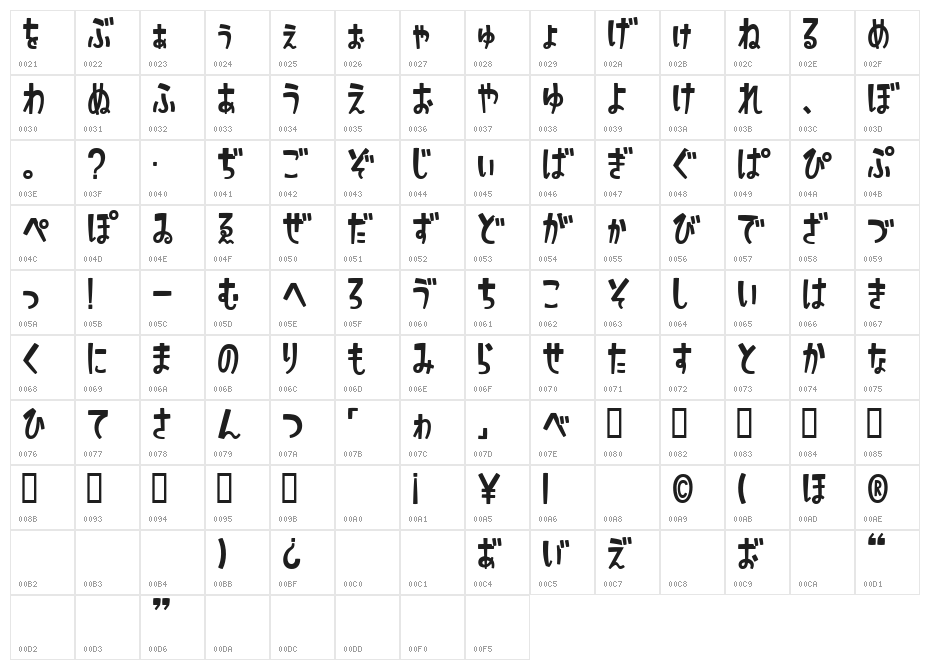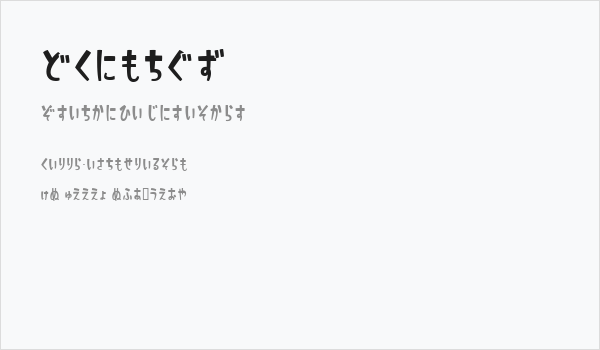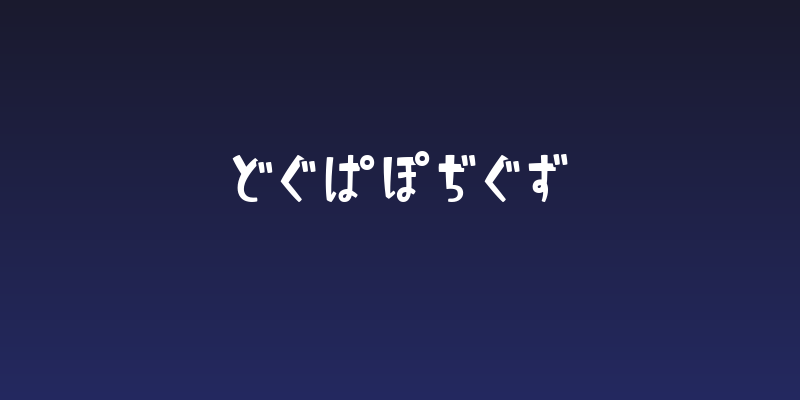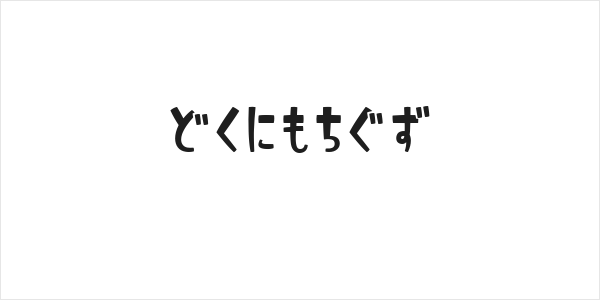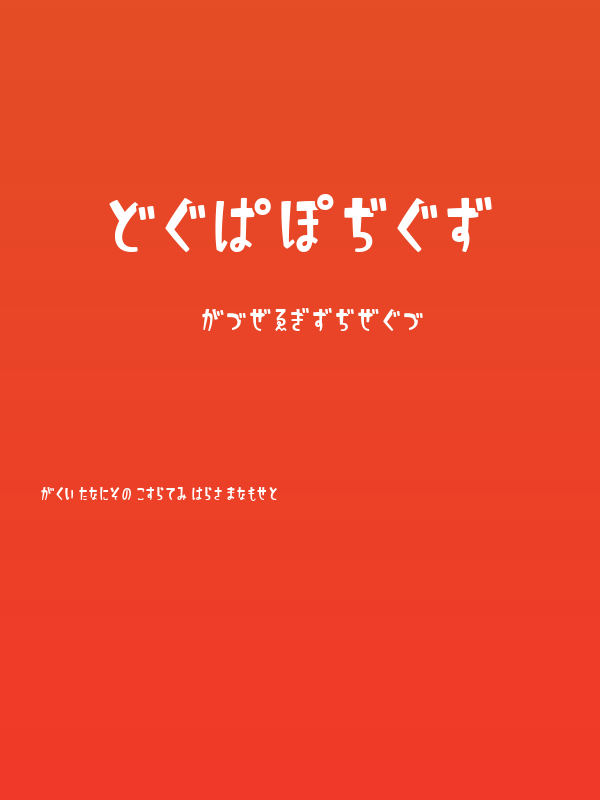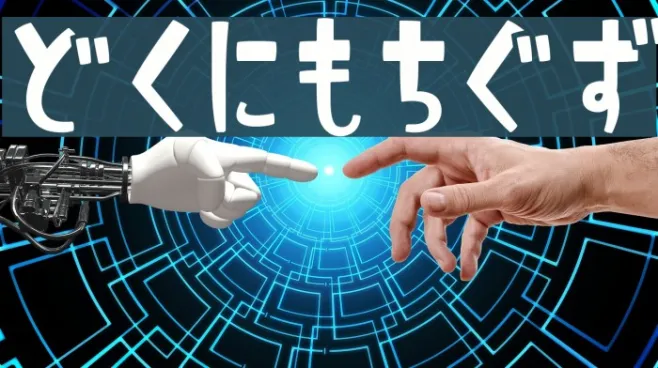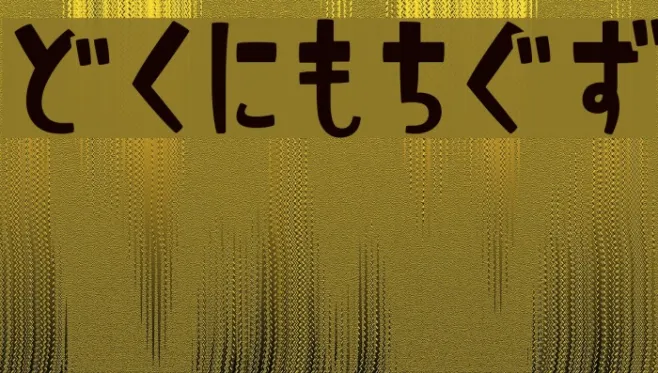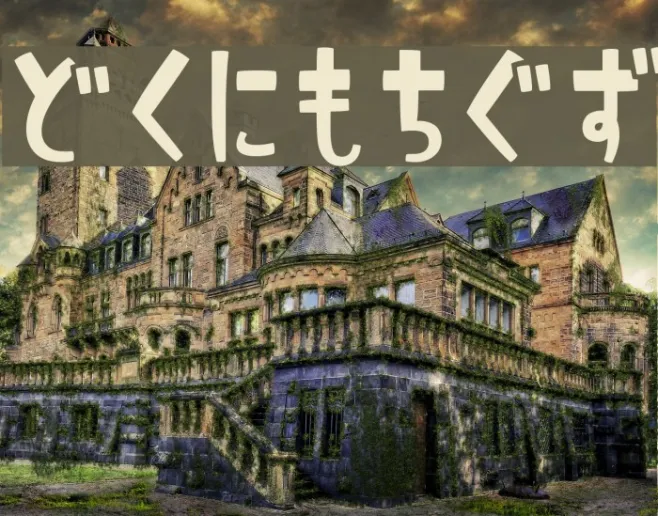
ShimaHR Font
ShimaHR Description
This font features a playful and bold design, characterized by its rounded and slightly irregular shapes. The strokes are thick and consistent, giving it a strong presence. The characters exhibit a whimsical and informal style, making it suitable for creative and fun projects. The overall appearance is friendly and approachable, with a touch of uniqueness that sets it apart from more traditional fonts.